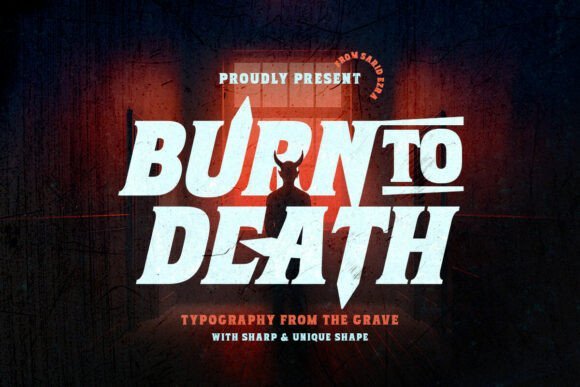
When Horror Meets Typography
Have you ever been working on a design project and suddenly, an idea hits you like a ton of bricks? The kind of idea that makes you jump out of your seat, grab your mouse, and start frantically clicking away in your design software? That’s exactly what happened to me when I stumbled upon the Burntodeath Regular Font.
This stunning all-caps display typeface is the perfect companion for designers who need to create a sense of dread, foreboding, or unease in their work. Its unique blend of sharp angles, triangular spurs, and flared stems creates a carved, menacing feel that’s sure to grab attention. Whether you’re designing horror posters, game covers, or album art, the Burntodeath Regular Font is an invaluable tool in your creative arsenal.
Burntodeath Regular Font Key Features
- Font Type: Regular, sans-serif font with a distressed, worn-out appearance.
- Unique Characteristics: Distressed, worn-out texture with a subtle grunge effect, making it ideal for creative and design-oriented applications.
Burntodeath Regular Font Review
I recently had the chance to work with the Burntodeath Regular font, and here’s my honest take.
- The font’s distressed texture adds a unique touch to digital and printed designs.
- Its bold, rugged feel makes it perfect for titles, headings, and other high-impact text elements.
- Burntodeath Regular has a wide range of applications, from industrial and grunge-inspired designs to steampunk and sci-fi aesthetics.
- The font is highly customizable, with options to adjust the texture, color, and size to fit your design needs.
- The font’s distressed texture can be overwhelming in large blocks of text, making it less suitable for body copy.
- The font may not be the best choice for designs requiring high legibility, such as academic or technical content.
While Burntodeath Regular has its limitations, it’s a fantastic addition to any designer’s toolkit. Its versatility and unique aesthetic make it a great choice for projects requiring a bold, edgy feel.
Burntodeath Regular Font is ideal for:
- Grungy or distressed text effects.
- Creating a vintage or retro aesthetic.
- Adding a unique touch to social media posts or presentations.
For optimal results, use Burntodeath Regular Font in combination with other distressed or grungy elements, and adjust font size and color to enhance the overall effect.